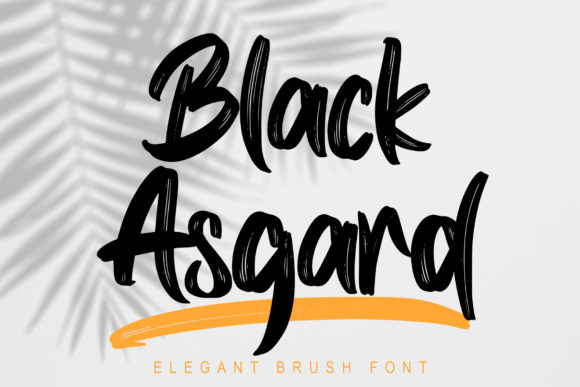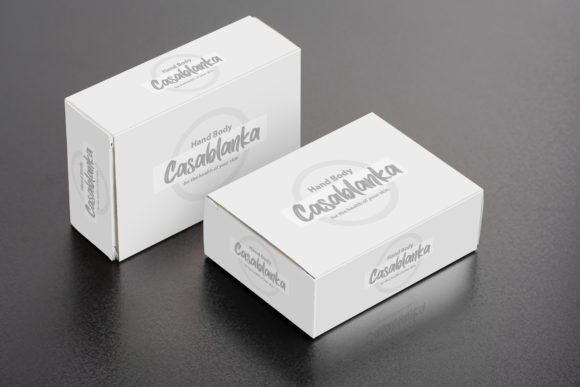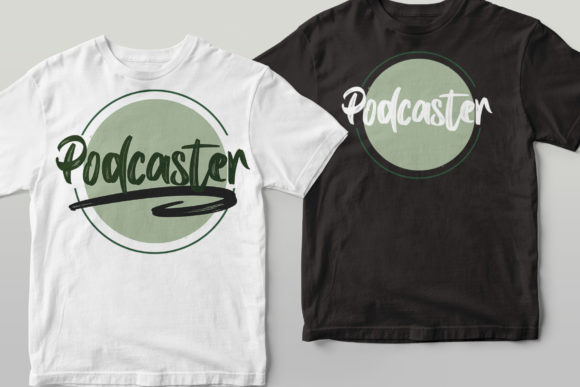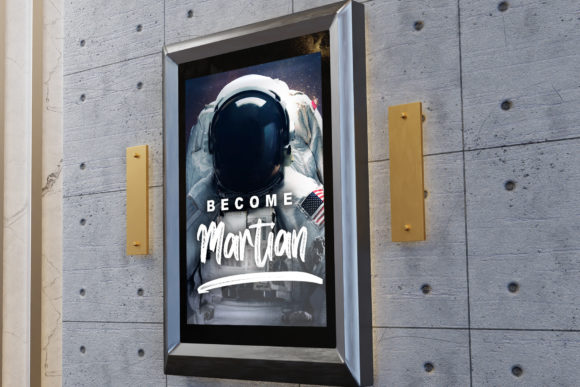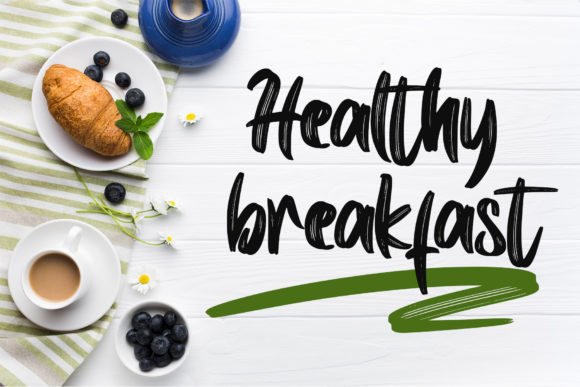
About Black Asgard Font
Black Asgard is a natural dry brushed handwritten font. It can be used for various purposes such as logos, wedding invitations, headings, t-shirts, letterhead, signage, labels, news, posters, badges and so much more.